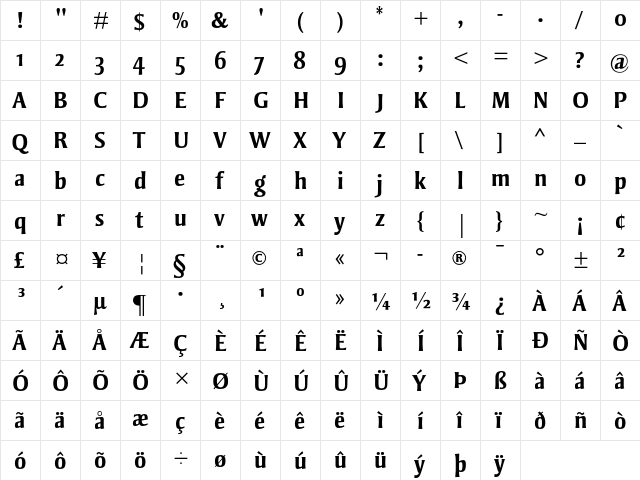
Strayhorn MT Bold SC Font Preview
Strayhorn MT Bold SC
Design Context for Strayhorn MT Typeface
Strayhorn MT offers clean, dependable letterforms without strong stylistic allegiance, making it a practical choice for designers who need flexibility. The heavy weight commands attention and anchors typographic hierarchies.
Pro Tip: Pair Strayhorn MT with a font of contrasting weight or personality to build a more expressive typographic hierarchy.